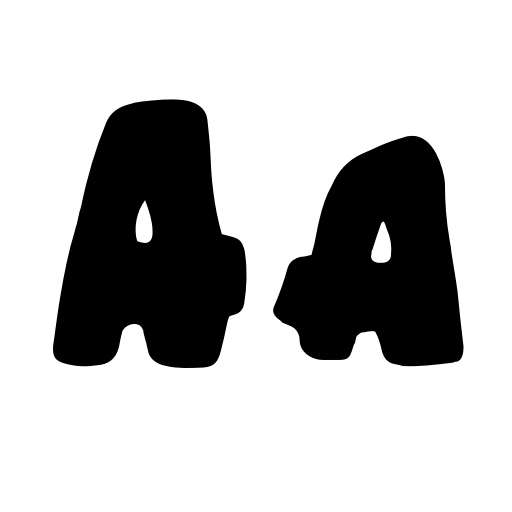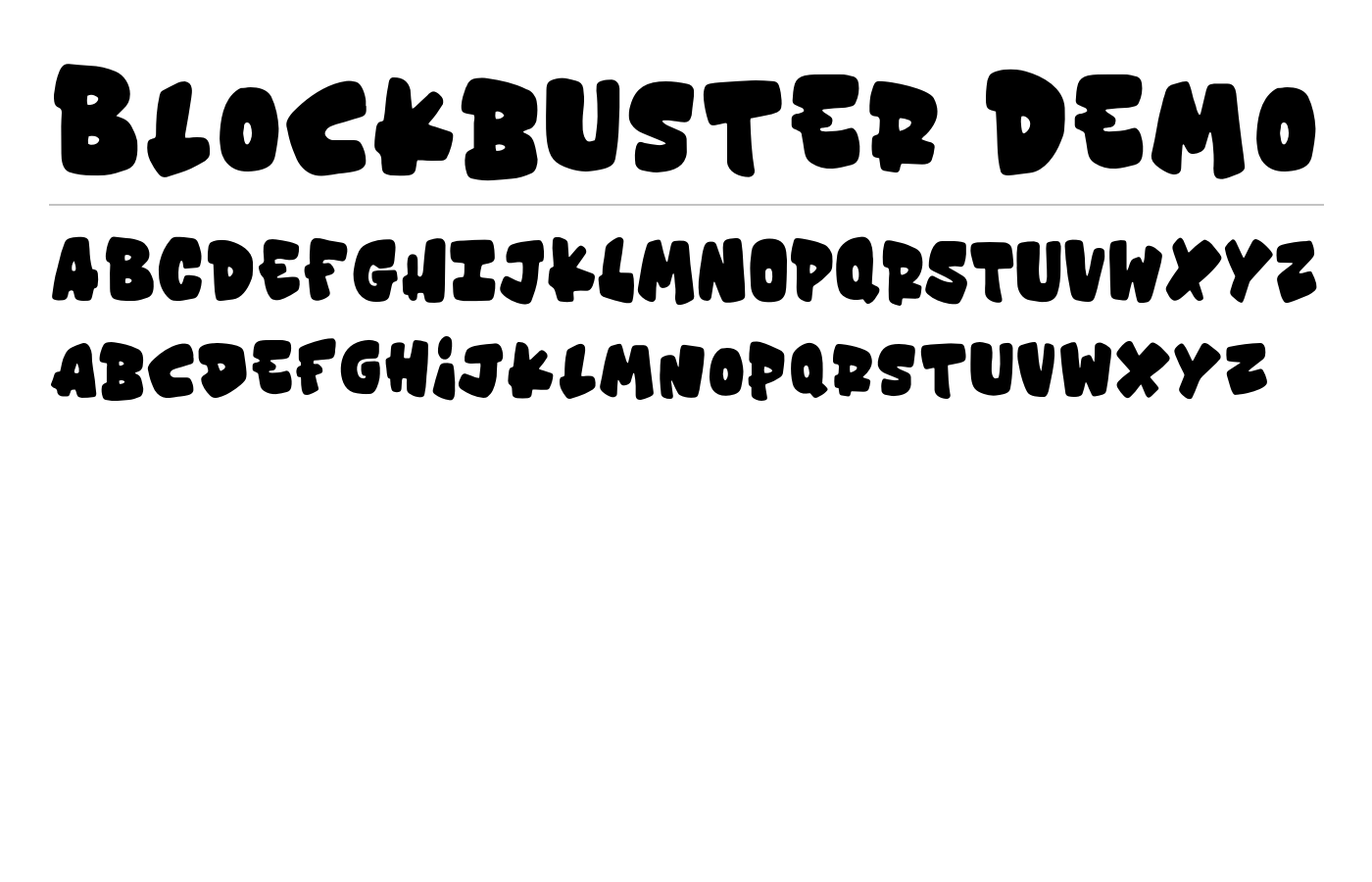
Blockbuster Demo is a playful and bold display font with chunky, irregular shapes that give it a fun, casual vibe. Its heavy weight and rounded forms make it ideal for eye-catching headlines, children’s materials, or any project that wants to convey energy and friendliness. This font works best in creative branding and informal contexts where a lively, approachable style is needed.
Blockbuster Demo Font
About Blockbuster Demo Font